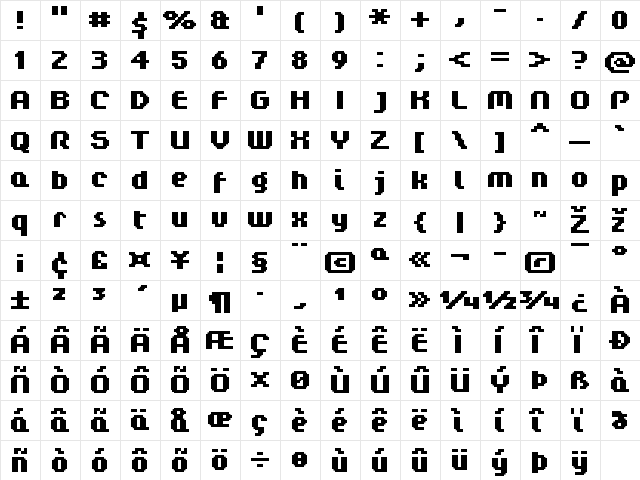
FFF Regency Bold Regular
| Foundry | Fonts For Flash |
| Designer | Fonts For Flash |
Design Context for FFF Regency Bold Typeface
FFF Regency Bold offers clean, dependable letterforms without strong stylistic allegiance, making it a practical choice for designers who need flexibility. Its bold stroke weight gives it real presence on the page.